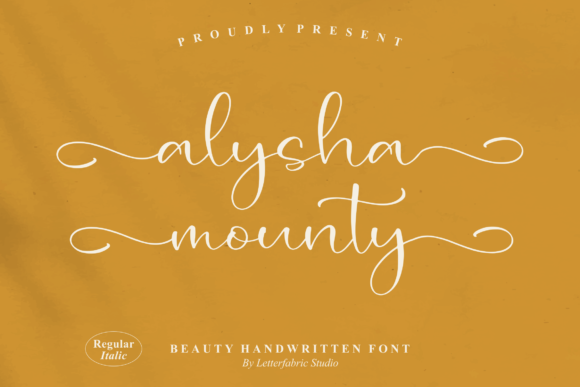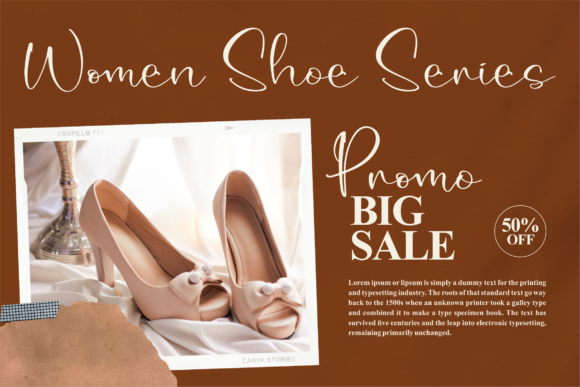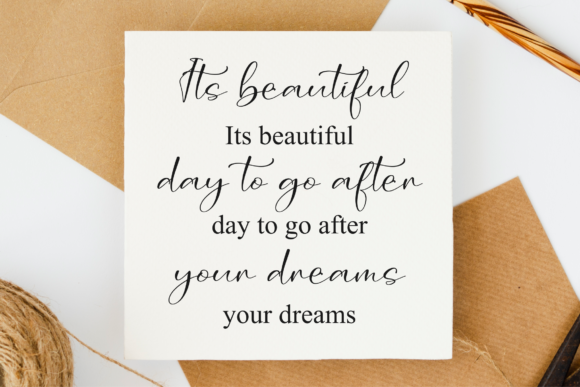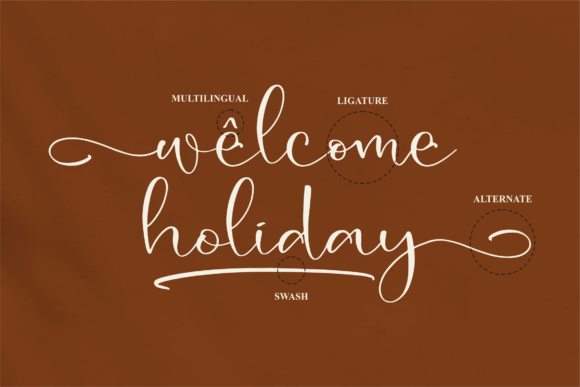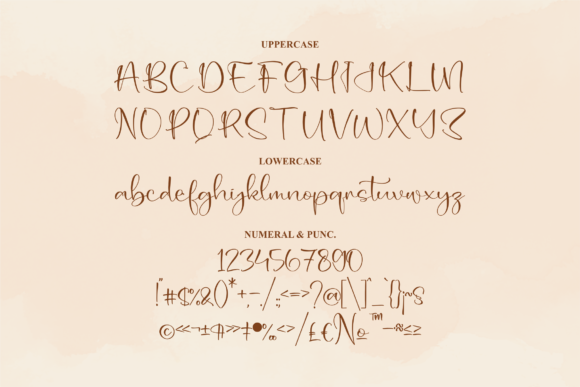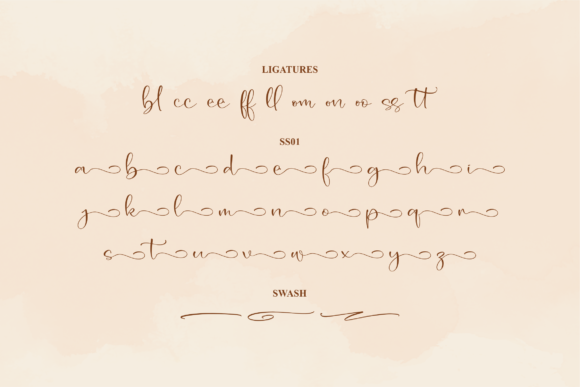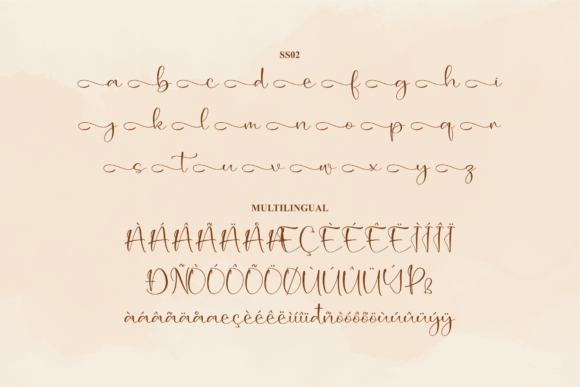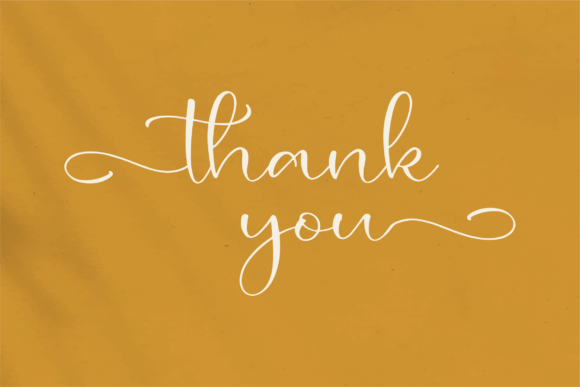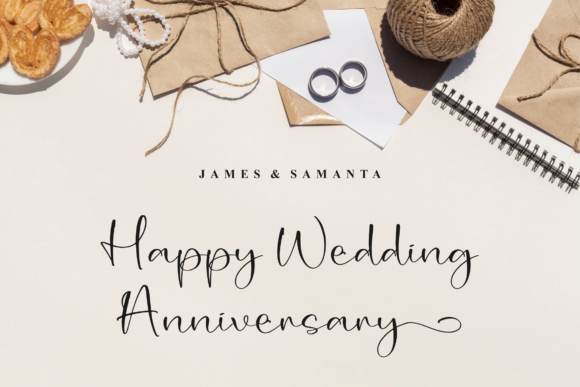
About Alysha Mounty Font
Alysha Mounty is a gorgeous script font. It is a suitable for any projects such as: logos, branding projects, homeware designs, product packaging, mugs, quotes, posters, and all your other lovely projects that need a beautiful script taste. This font is PUA encoded which means you can access all of the amazing glyphs and ligatures with ease!